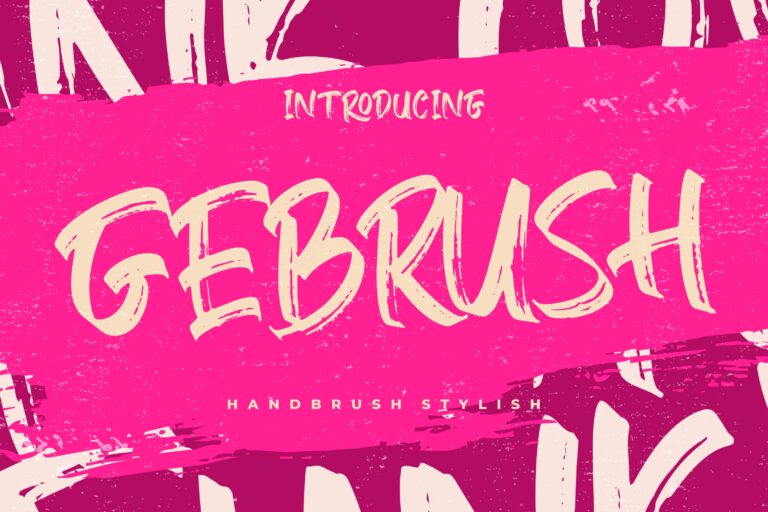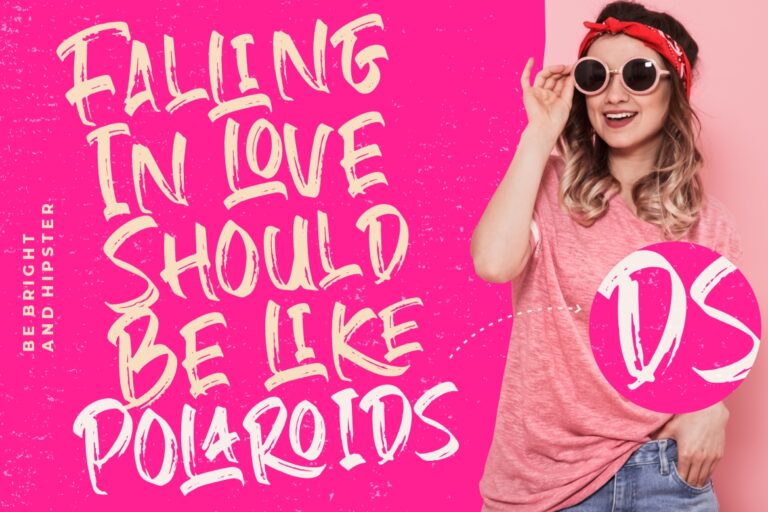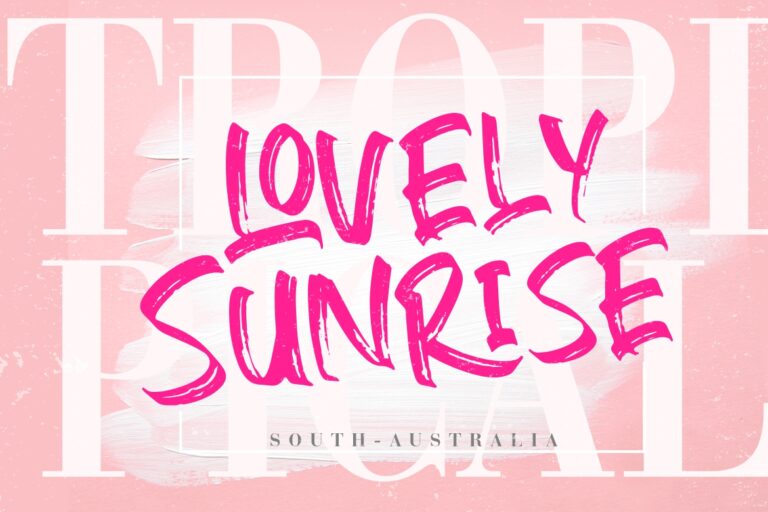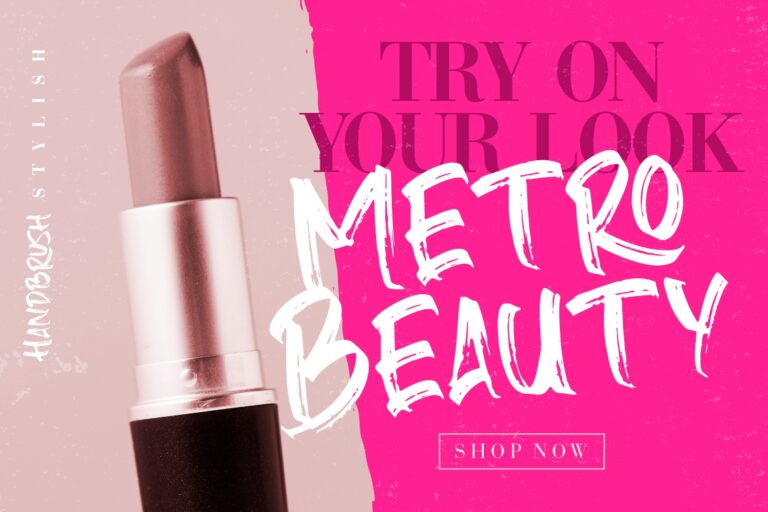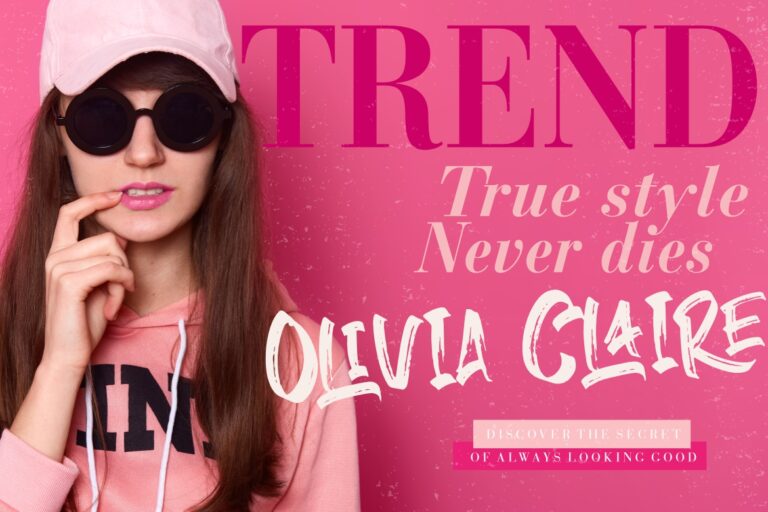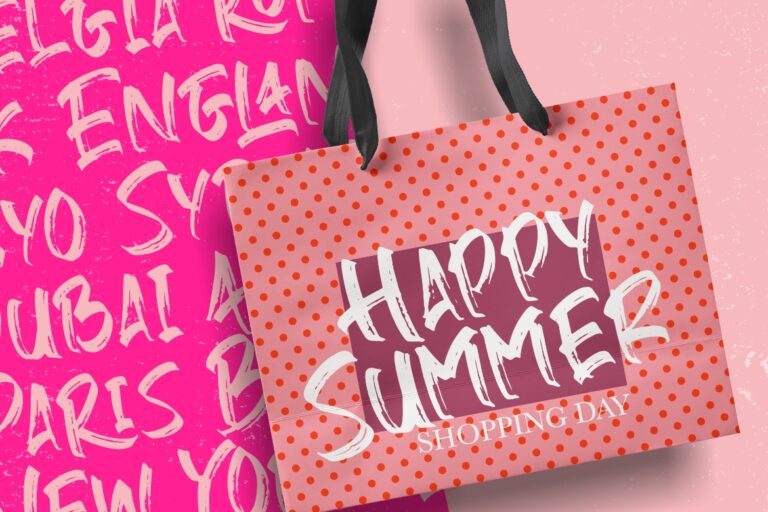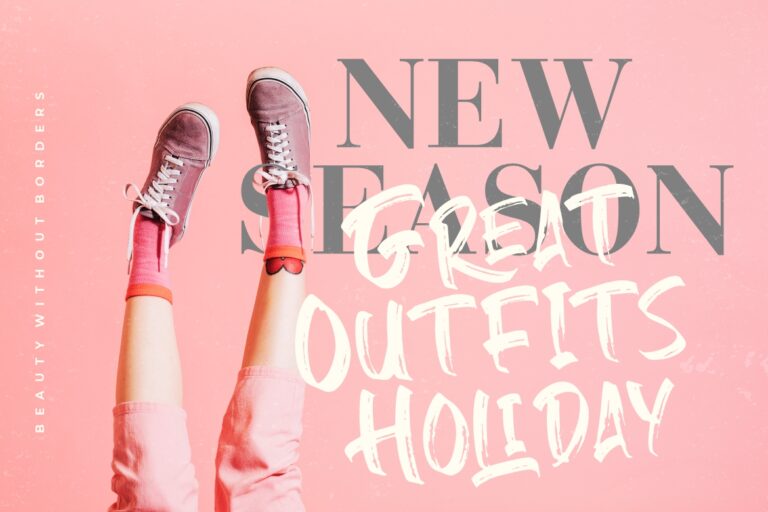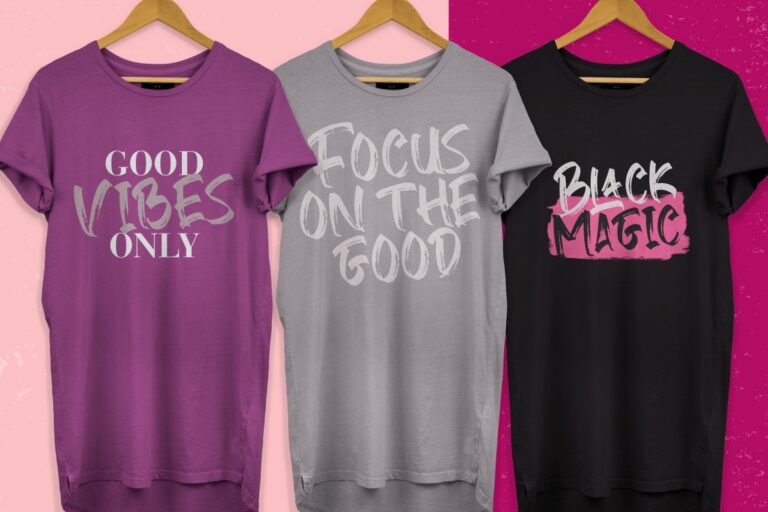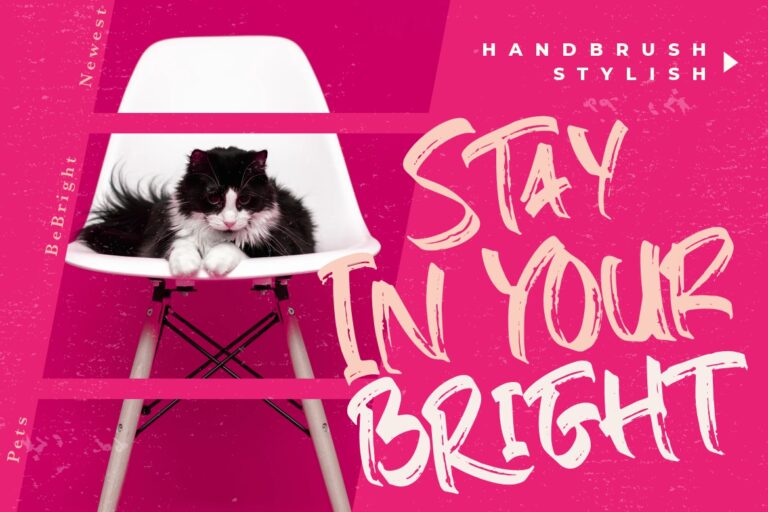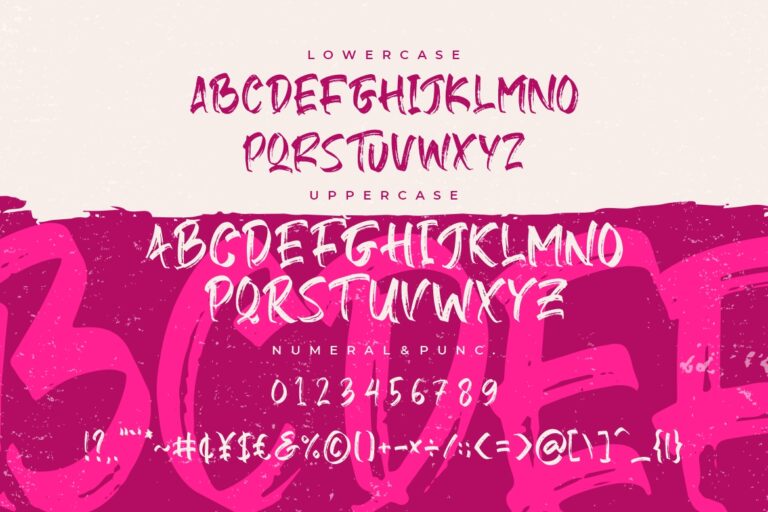
Gebrush Handbrush Stylish
Gebrush a handbrush stylish font with natural scratch make looks bold and hard.
Gebrush would perfect for photography, watermark, social media posts, advertisements, logos & branding, invitation, product designs, label, stationery, wedding designs, product packaging, special events or anything that need handwriting taste.
- Ligature & Swashes